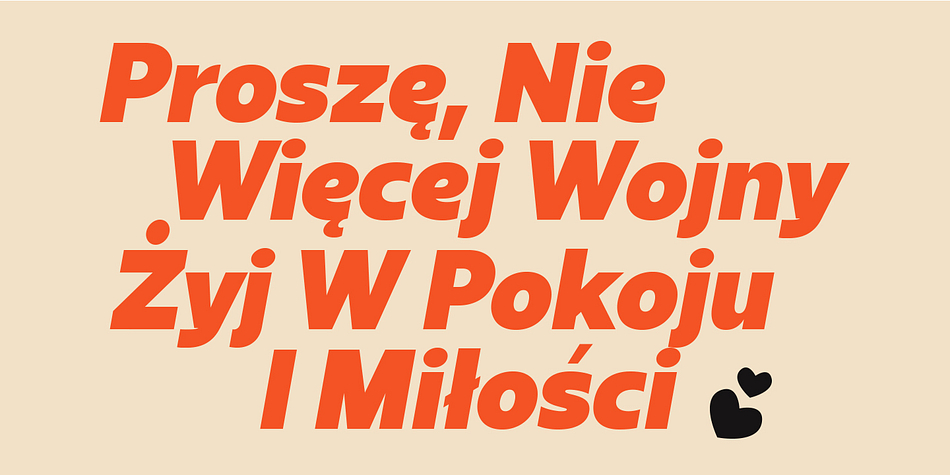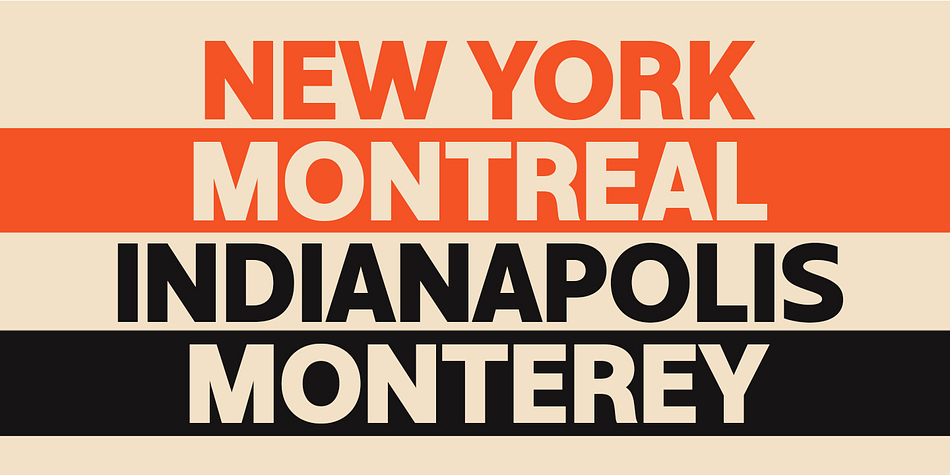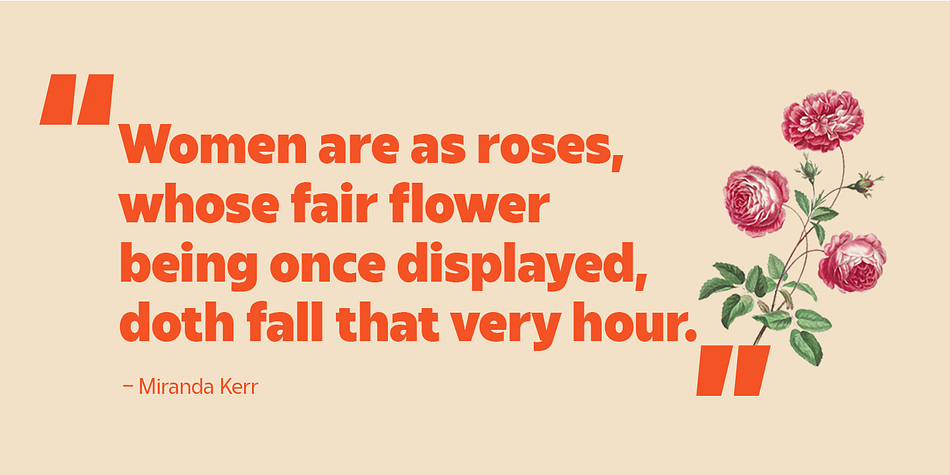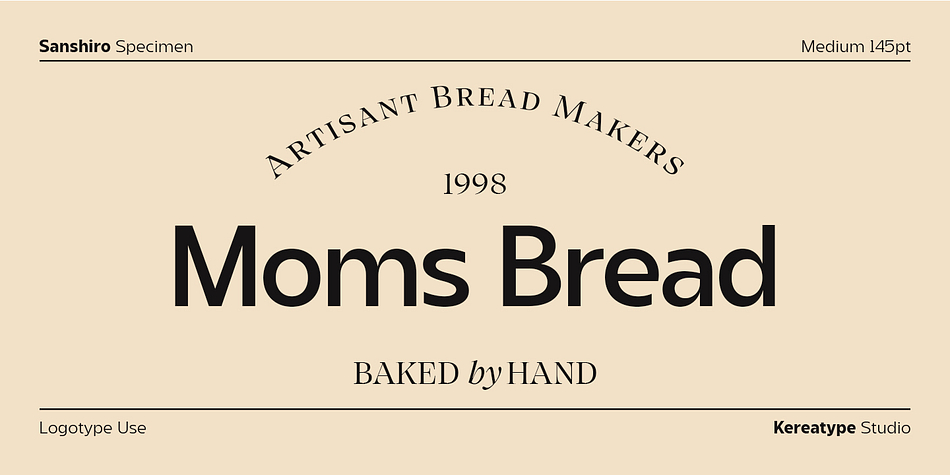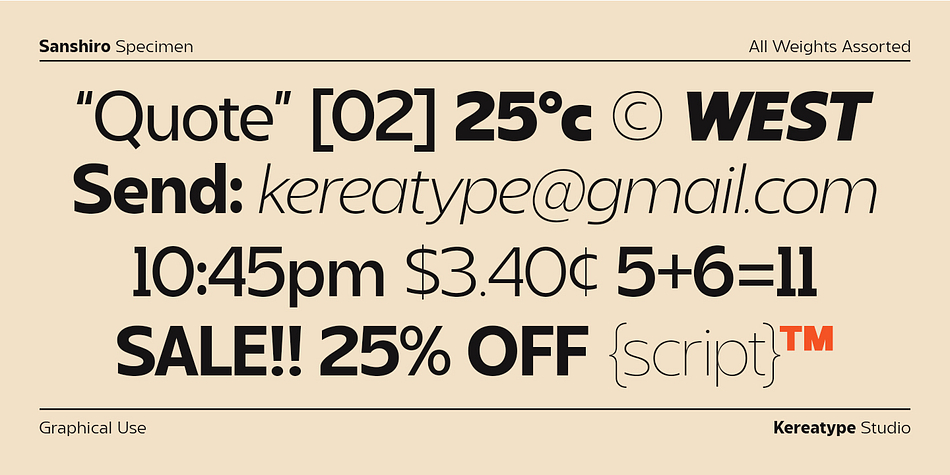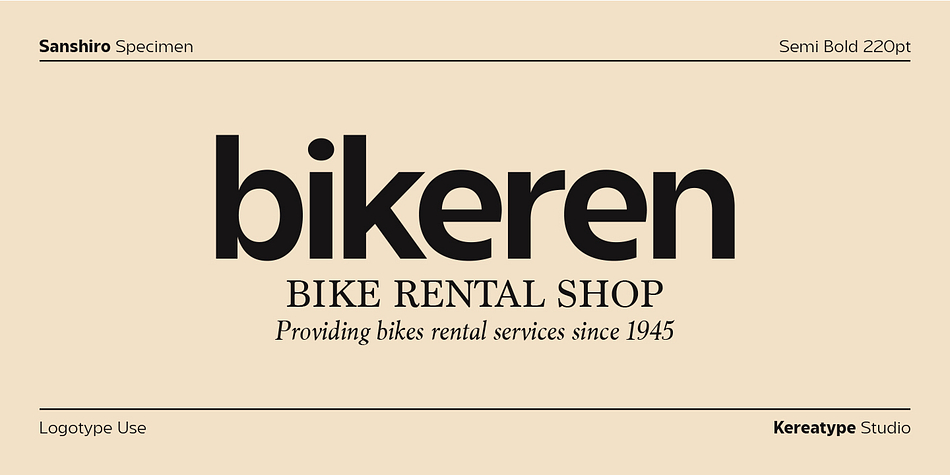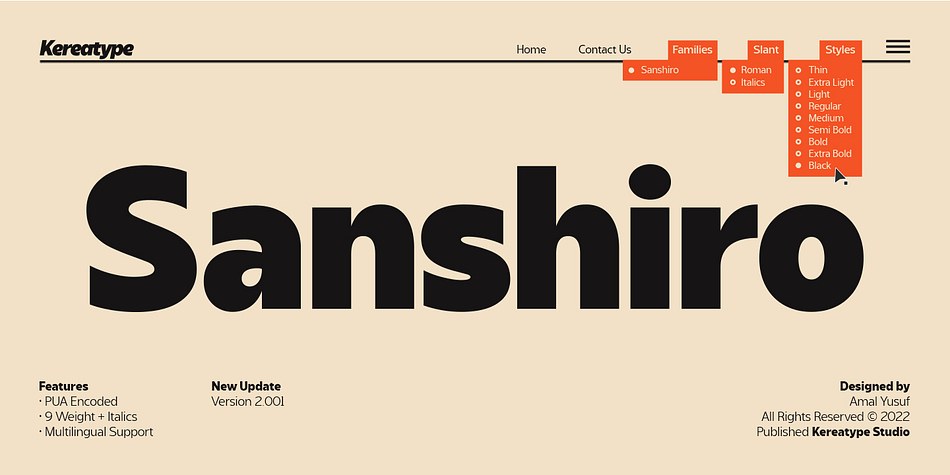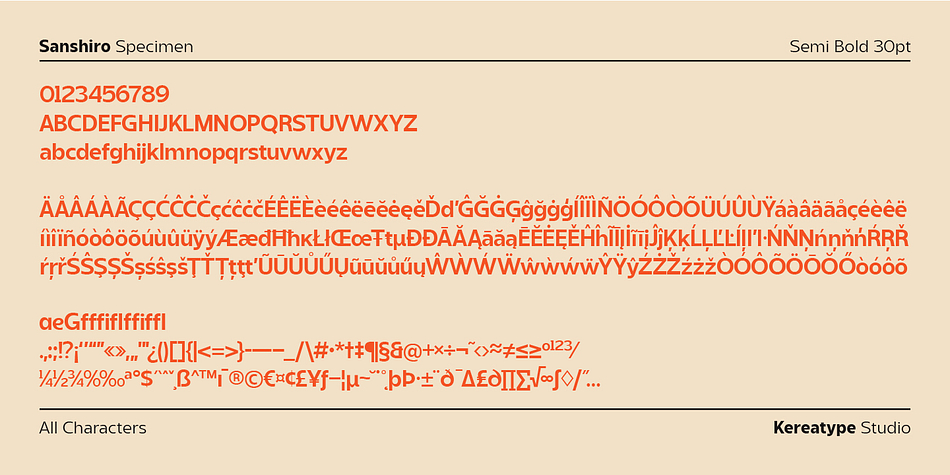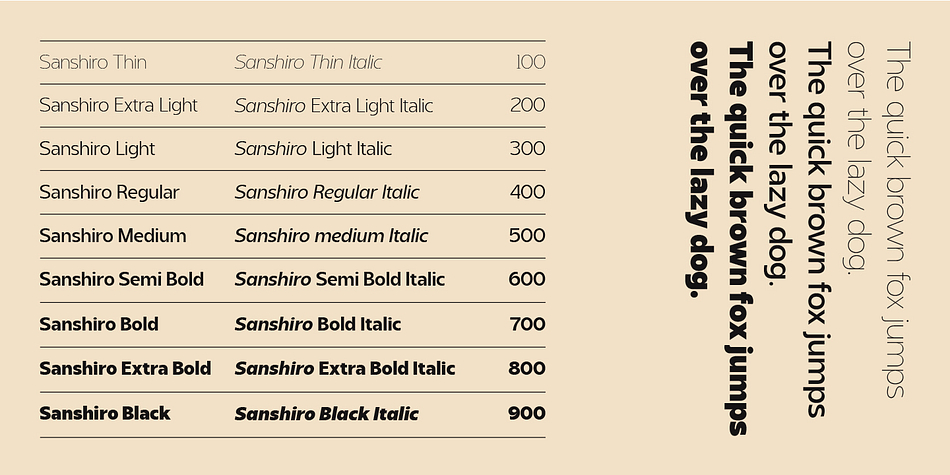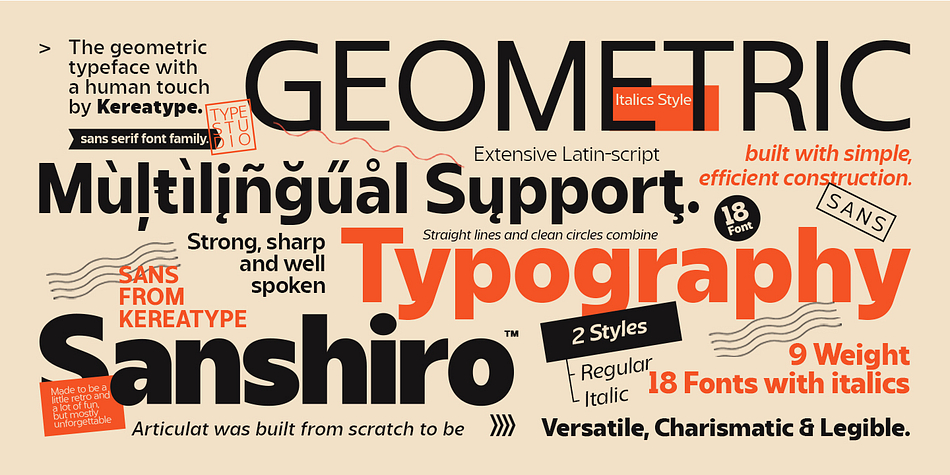
Sanshiro
Sanshiro is a sans serif font family. This typeface has eighteen styles and was published by Kereatype.
Sanshiro is a geometric sans serif font family. Contain 9 weights from Thin to Black with matching Italics. Sanshiro Normal character shapes have optimized proportions and an improved balance perfect to use for text and the heavyweight has a strong character have a unique style with a smooth shape to use for any display. Sanshiro font can improve and be used for any display media to support your visual design.